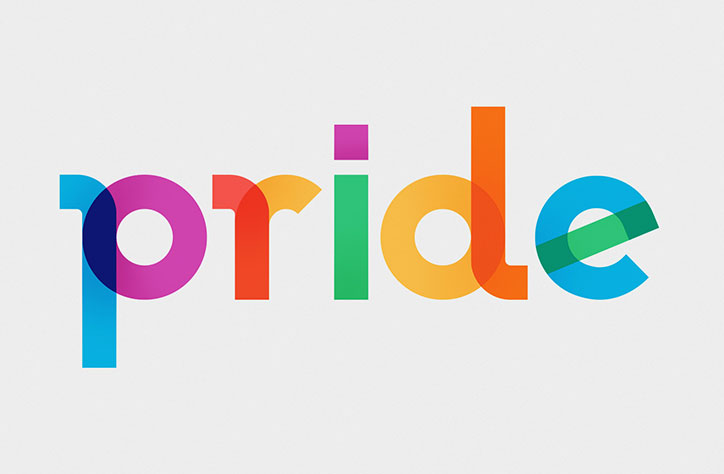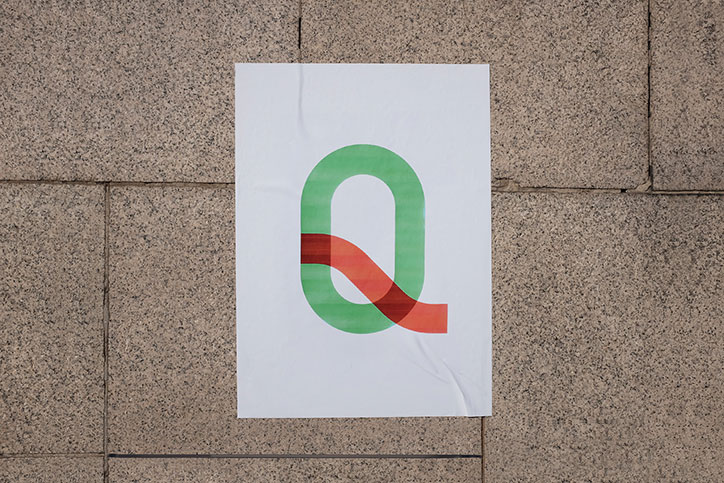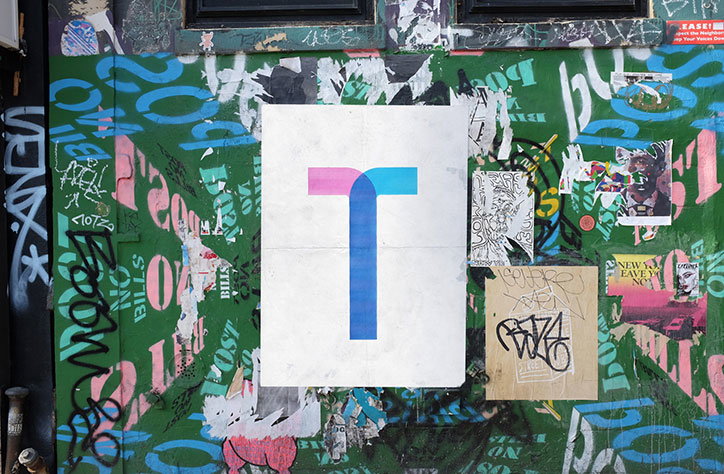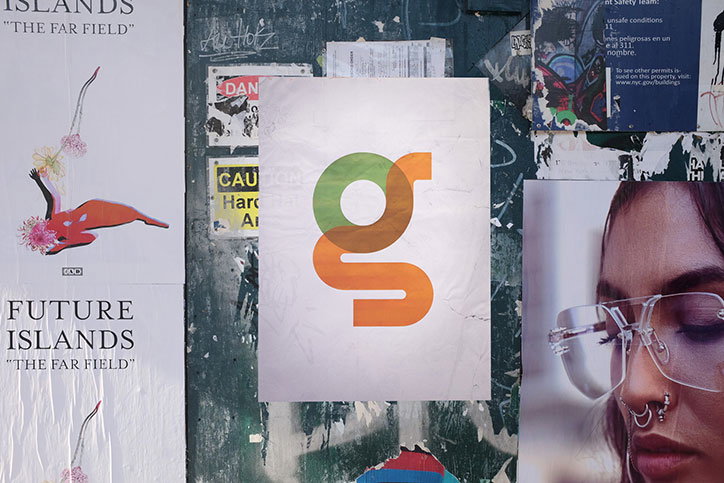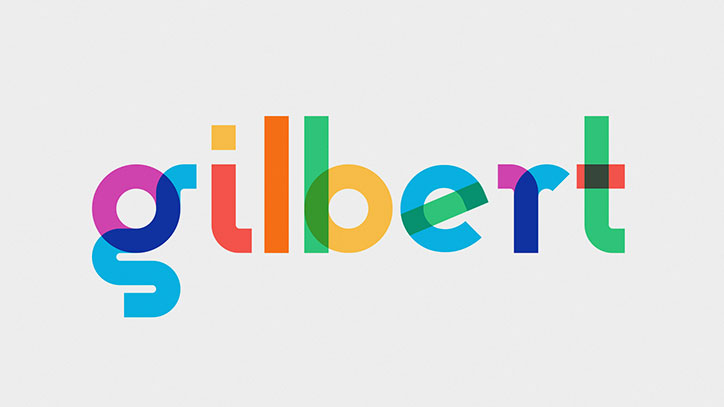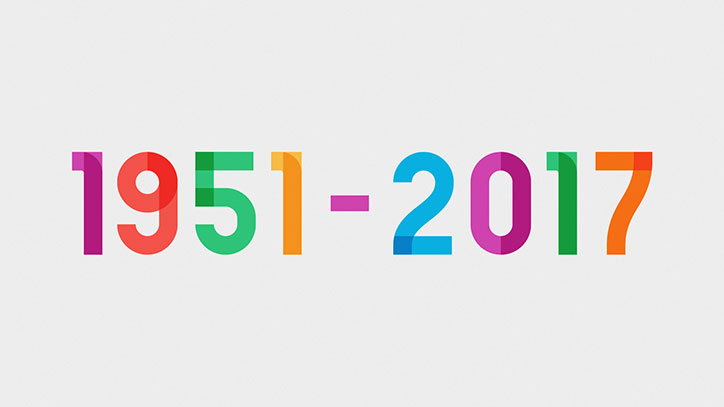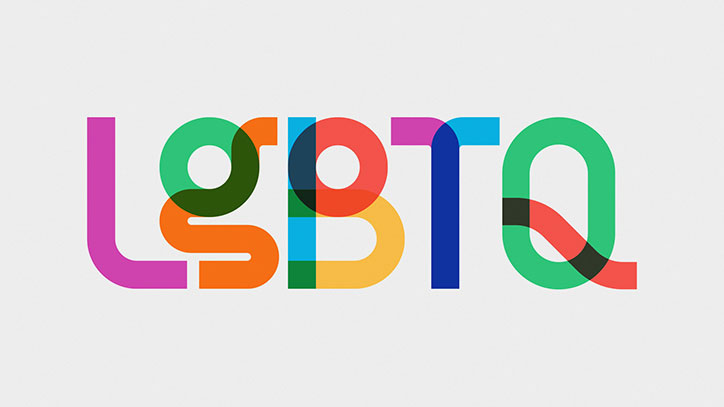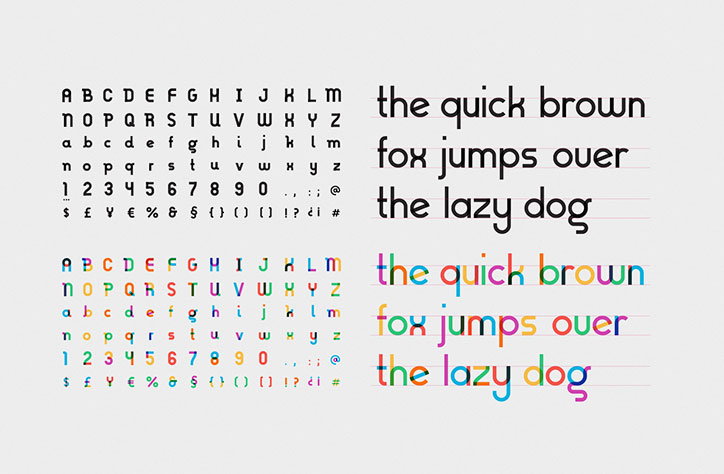
Typeface released to honour LGBT activist, artist and rainbow flag creator Gilbert Baker
NYC Pride and NewFest have worked with Ogilvy & Mather’s design team and foundry Fontself to create a typeface inspired by the artist and LGBT activist Gilbert Baker, who recently passed away aged 66. Gilbert was known as creator of the rainbow flag in 1978, as well as many protest banners over his life, so the typeface both emulates his work and allows it to be continued through its application to posters.
The typeface, named Gilbert, “follows the design language” of the rainbow flag, with each character featuring a combination of vivid colours from the flag. The different coloured sections of the letterforms are semi-transparent, so when overlaid show a combined colour on the intersections. Made up of flat, chunky strokes in curvy shapes, the face is at once impactful, fun and celebratory.
Ogilvy says it was designed for “striking headlines and statements that could live on banners for rallies and protests,” and is being built out into a family of weights and styles. It is available in a standard vector font and colour font, currently only usable in Photoshop CC 2017, and beta versions can be downloaded for free. The Type With Pride site also offers free downloadable artwork featuring the typeface, for use at pride events and rallies.
“We are all driven by the same passion for self-expression and creativity,” says the team, explaining that the typeface will be iterated based on the feedback of the community and the development process will be documented openly online.
“We wanted to create something special that would not just honour Gilbert and his iconic rainbow flag but also give the LGBTQ community a fantastic tool to help them create their own banners, posters and signs,” says the Ogilvy team. “People can now raise the rainbow flag with every letter they type. By literally embedding the rainbow flag into the font we made it possible for everyone around the world to type with pride.”